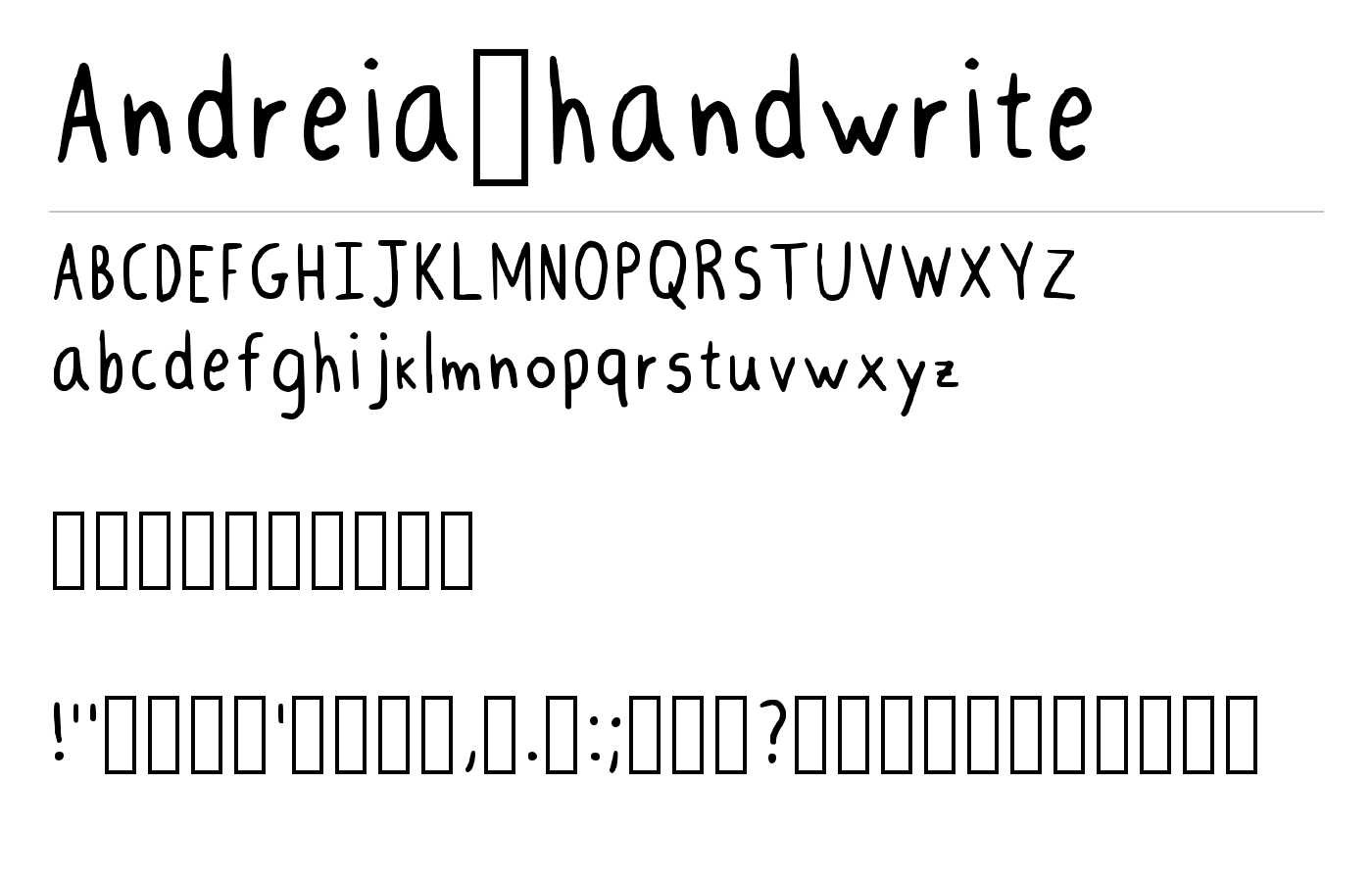
Andreia_handwrite is a casual, friendly handwritten sans serif font with a light weight and narrow width that gives it an intimate, personal feel. Its tall x-height and gently irregular strokes add warmth and approachability, making it ideal for informal branding, invitations, or playful editorial work where a natural, human touch is desired. This font works best in headlines or short text to convey friendliness and simplicity without sacrificing readability.
Andreia_handwrite Font
About Andreia_handwrite Font